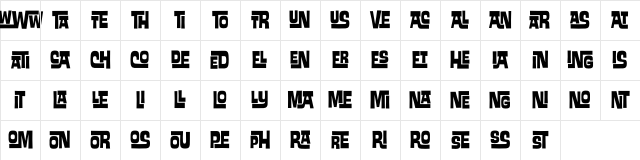
Complete EdPS InterlockLigs glyph index. Displaying only characters natively supported by EdPS InterlockLigs font.
EdPS is a composed and adaptable typeface that performs quietly and consistently across a wide range of design contexts.